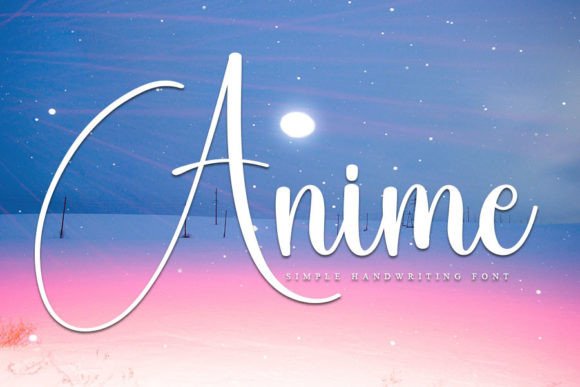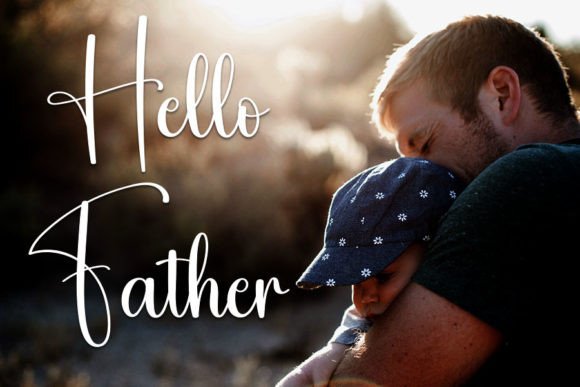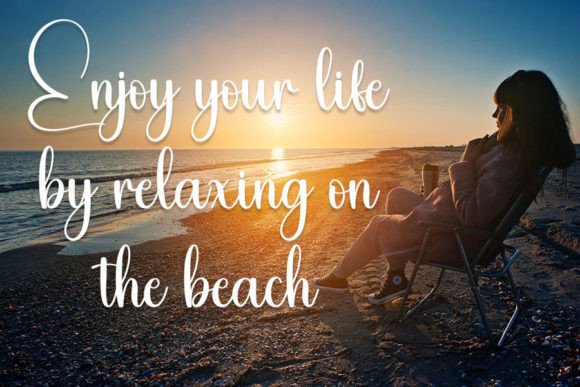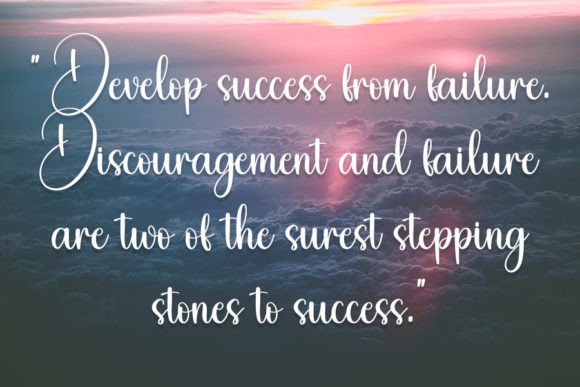
Anime Font: A Bold Display Font for Eye-Catching Designs
About the Anime Font
The Anime Font is here to transform your projects with its distinctive character and style. Anime is a simple handwritten font. This versatile font has a wide spectrum of applications ranging from greeting cards to headlines and is guaranteed to add a simple and natural feel to your next project!
Anime’s informal, handwritten style makes it ideal for projects needing a friendly, approachable feel. It excels in headlines, short text blocks on posters or packaging, and social media graphics. Use it for branding projects targeting younger demographics or those emphasizing a handcrafted aesthetic. Avoid using it for body text or UI elements where readability over longer passages is crucial.
Pair Anime with a clean sans-serif like Open Sans for a balanced contrast, or a geometric sans-serif like Montserrat for a more modern feel. For a touch of elegance, consider pairing it with a delicate serif like Playfair Display. The contrast will enhance readability while maintaining visual harmony.
Anime’s overall personality is casual and inviting, making it unsuitable for projects requiring a formal or sophisticated tone. Its friendly nature makes it an excellent choice for projects related to children’s products, artisanal goods, or community-focused initiatives.